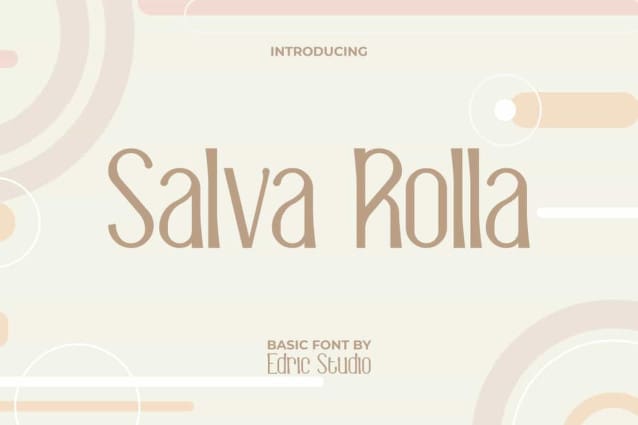
Salva Rolla Font
Salva Rolla Font is a unique stylish basic display font. This font has a fairly slim shape so it can provide a tall writing effect with a modern impression. It would be ideal for content art, café, creator, event organizer, fashion, furniture, graphic design, handicraft, photography, restaurant, writer, and many more!
Salva Rolla Font comes with a full set of Uppercase and Lowercase Basic Characters, Number, Punctuation, and Symbol. This font can be paired with other types of fonts without reducing its charm and can complement any project, including: brand image, cover, custom design, flyer, header, invitation, label, menu, packaging design, poster, quote, screen print, signage, stationery, sticker, title, website, etc.